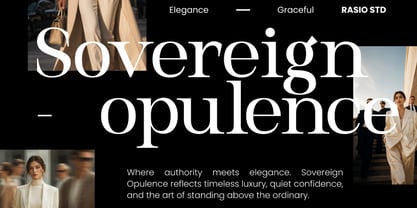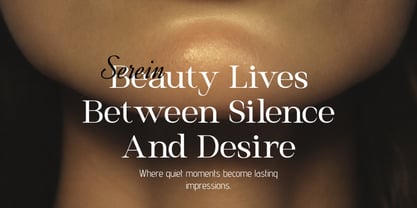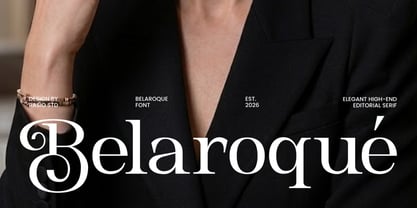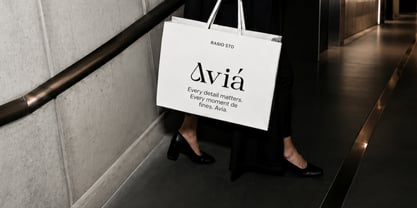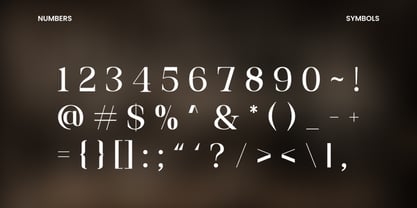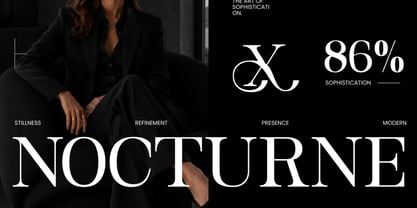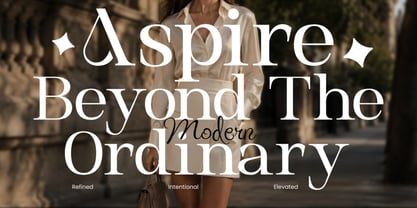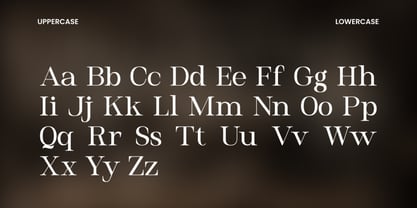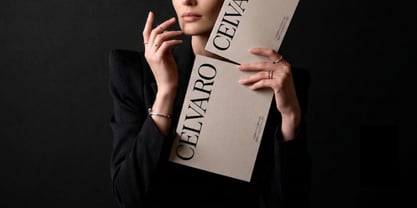
Belaroque
von Rasio Studio
Die Schriftfamilie Belaroque wurde von Fajar Indra entworfen und von Rasio Studio veröffentlicht. Belaroque enthält 1 Stile. Mehr über diese Familie
Belaroque is a contemporary editorial serif typeface distinguished by high-contrast strokes, elongated proportions, and precisely sculpted letterforms. The design combines crisp vertical stems with delicate hairlines and refined wedge serifs, creating a sophisticated visual rhythm that feels elegant without sacrificing clarity. Carefully balanced character widths, generous counters, and measured spacing contribute to smooth text composition, while subtle calligraphic influence in selected curves and terminals adds individuality to each glyph.
Relevance and Use Case is perfect for premium branding and editorial design where refined typography is essential. Its elegant proportions and luxurious contrast make it highly suitable for fashion labels, beauty and skincare brands, jewelry collections, boutique businesses, editorial magazines, publishing projects, luxury hospitality identities, wedding stationery, premium product packaging, creative agencies, architecture studios, interior design portfolios, website hero sections, and sophisticated social media campaigns.
Designer: Fajar Indra
Foundry: Rasio Studio